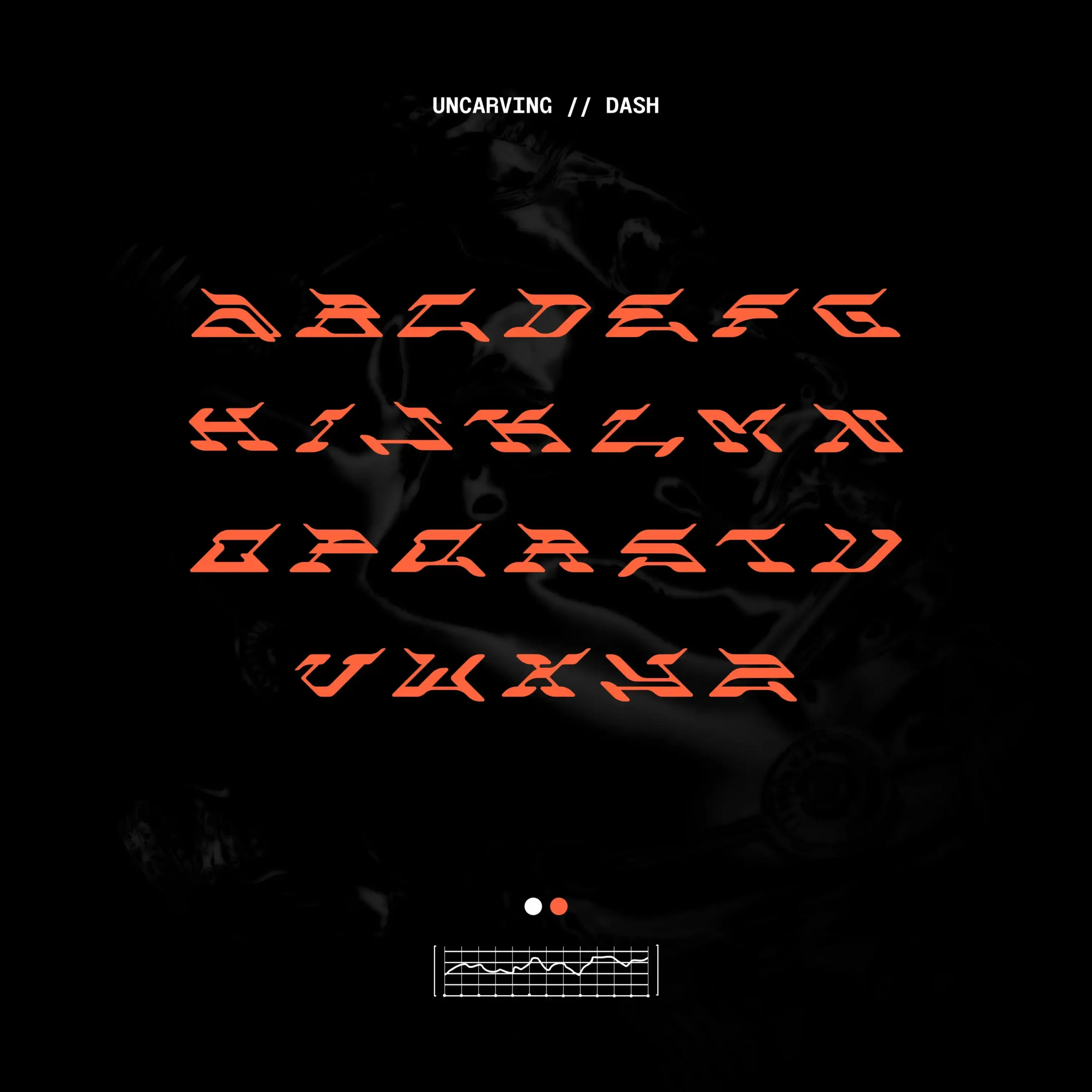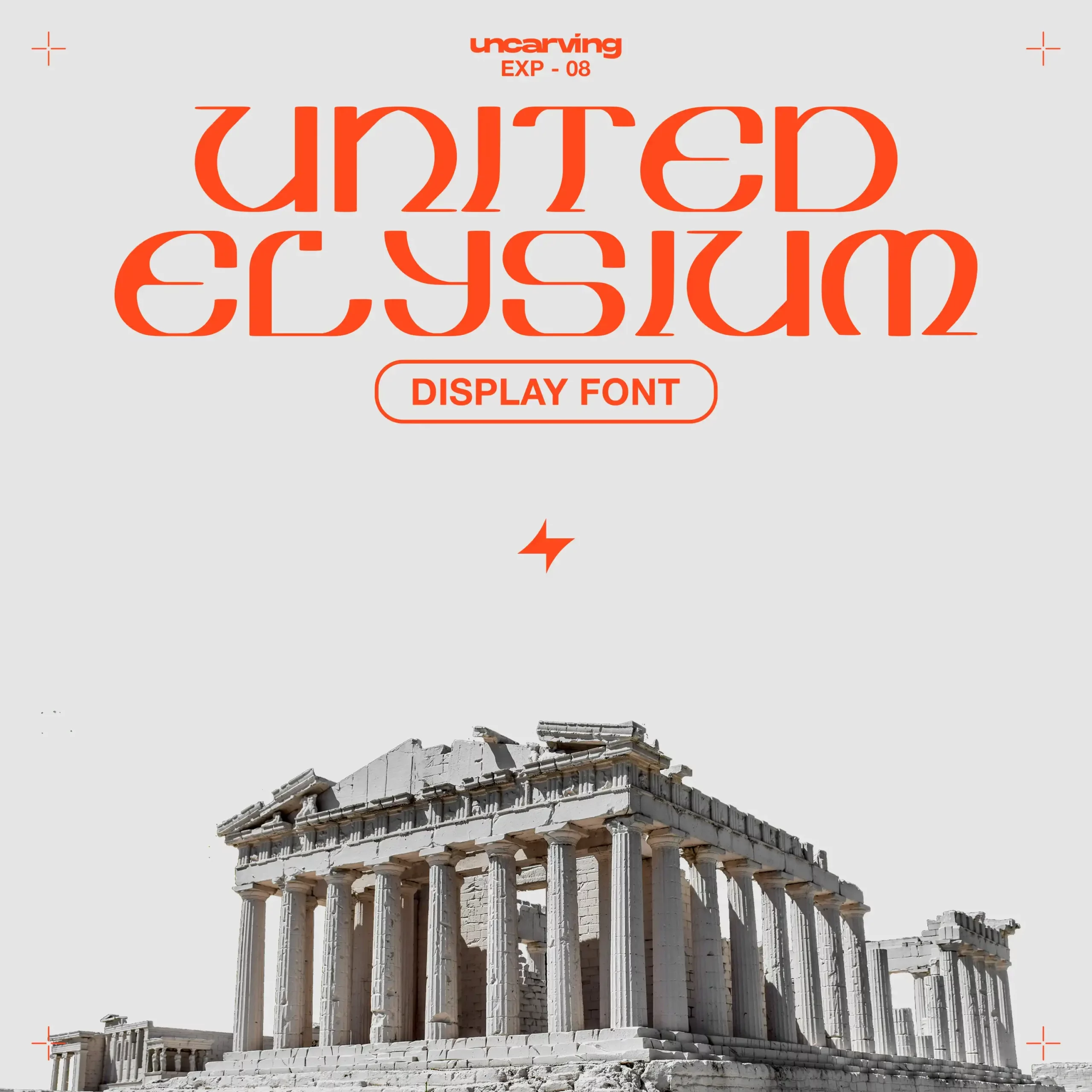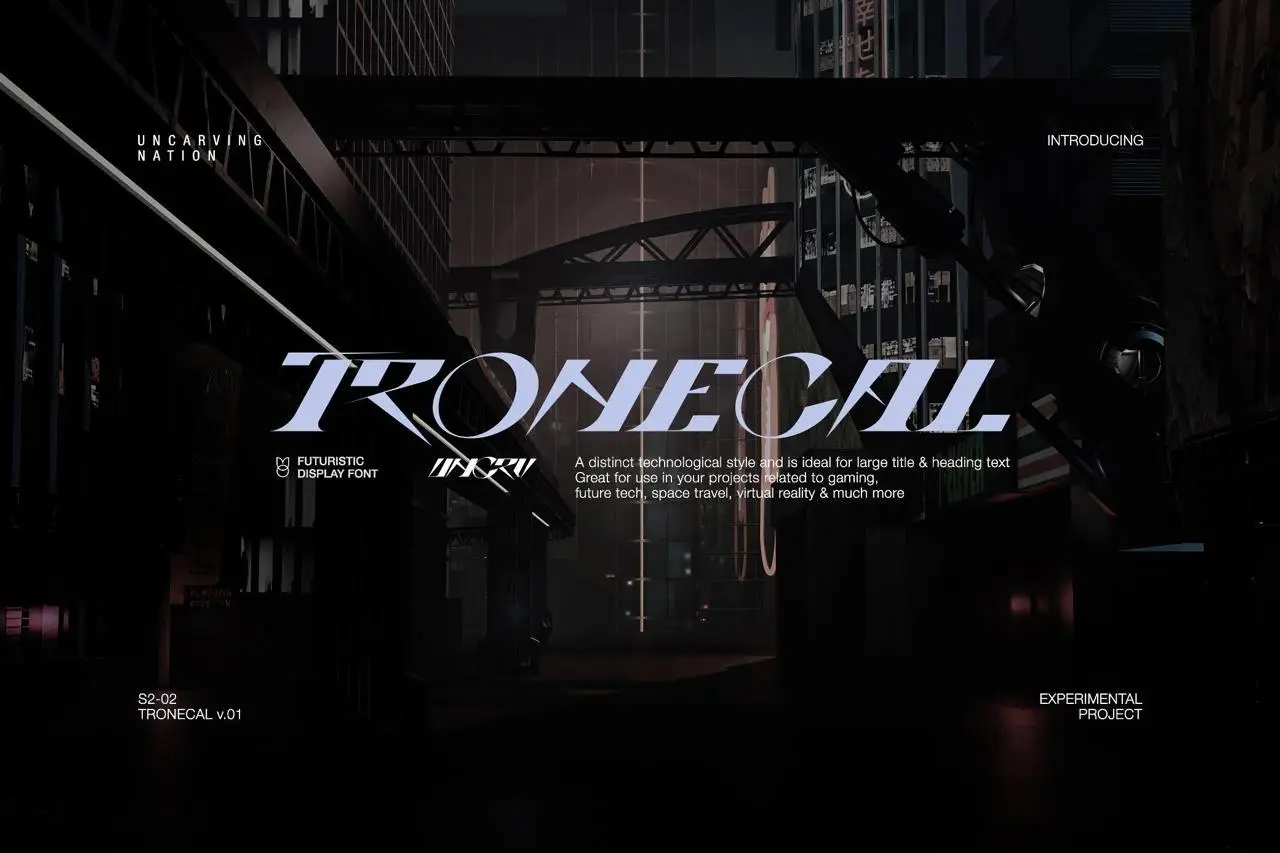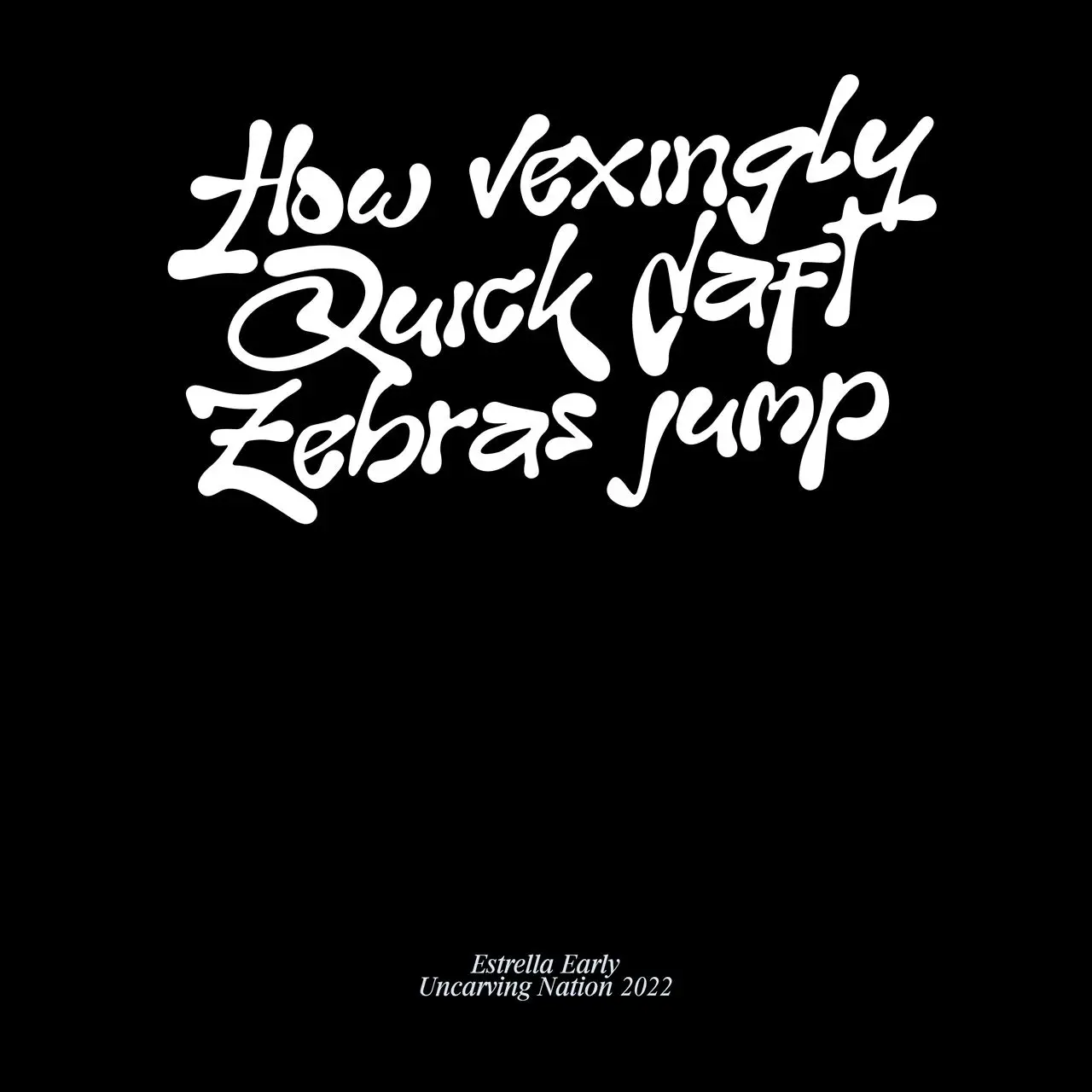
Hey there, fellow typeface lover! 🎨✨ Are you ready to take your designs to a whole new dimension? The uncarving collection is an absolute goldmine of futuristic display fonts that scream creativity, boldness, and next-level style. Whether you’re building a cyberpunk game UI, a sleek branding identity, or a mind-bending poster for a sci-fi event, these typefaces are about to become your new secret weapons. 🚀 Let’s dive into nine handpicked gems from the brilliant mind at uncarving—each one a ticket to typography heaven!
Why Use These Futuristic Display Fonts?
These aren’t just letters—they’re visual statements. The uncarving collection is designed to help your work stand out in a world flooded with generic typography. From gaming and VR to high-fashion branding, these fonts bring a modern, edgy vibe that instantly grabs attention and communicates innovation. 💥 Plus, they’re all instant digital downloads, so you can start creating magic the moment inspiration strikes!
Top 9 Uncarving Display Font Picks
Anvha – Display Font
Say hello to Anvha—a modern display font that blends boldness with a beautiful italic swing! 🚀 If you’re working on gaming posters, space-themed logos, or futuristic tech branding, this one’s your new best friend. It’s simple yet totally unique, and it’ll give your projects that “wow” factor instantly. ✨
Tronecal – Display Font (Version 1)
Get ready for a futuristic feast for the eyes! 🛸 Tronecal (version one) is all about those sharp, striking shapes that scream “tomorrow.” Perfect for space exploration graphics, VR interfaces, and game assets, this font keeps things simple while looking incredibly advanced. You’ll love how it elevates any design with its unique aesthetic! 🌌
Estrella – Display Font (Version 1)
Oh, Estrella—you absolute star! ⭐ This beautifully crafted display font adds a touch of elegance to any project, from luxury branding to eye-catching advertising. It’s sophisticated without being stuffy, with letterforms that truly shine. Whether personal or commercial use, Estrella will make your work look polished and premium. 🌟
Tronecal – Display Font (Original)
The original Tronecal is back and just as stunning as ever! 🎉 This futuristic font is perfect for adding a modern flair to your designs—whether you’re creating a tech startup logo or a sci-fi movie poster. Download it instantly and let your creativity run wild. It’s bold, clean, and absolutely iconic. 🚀
DASH Early Font
Hey creative soul, meet DASH Early—a font that’s equal parts stylish and modern! ⚡️ It combines contemporary aesthetics with a playful edge, making it ideal for branding, social media graphics, and eye-catching headlines. Instant download means you can start using it in minutes. Trust me, your design toolkit needs this one! 💥
Estrella – Display Font (Version 2)
Another breathtaking version of Estrella has landed! 🌸 This charming display font brings elegance and creativity to any project, from wedding invitations to chic brand identities. Its delicate letterforms make every word look like art. Grab this digital download and add a touch of grace to your next design. You’ll fall in love instantly! 💖
United Elysium Display Font
Welcome to paradise typography! 🏝️ United Elysium is the perfect blend of creativity and elegance, ideal for graphic designers who want their work to feel both dreamy and professional. Whether for branding, posters, or editorial layouts, this font brings a unique charm that’s hard to resist. Download it now and elevate your design game! ✨
Vertigo – Display Font
Get ready to spin into creativity with Vertigo! 🌀 This bold, modern typeface is absolutely electrifying for posters, branding, and any project that demands attention. It’s edgy, it’s dynamic, and it’s ready to make your designs pop. Plus, instant download means the fun starts now. Don’t sleep on this one! 🚀
Arvaq – Display Font
Last but not least, say hello to Arvaq—a fabulous, bold display font that demands to be noticed! 🎉 Perfect for headlines, logos, and creative typography, Arvaq adds a modern, fearless flair to everything it touches. Instant access means you can start crafting jaw-dropping designs in no time. Go ahead, give your projects the Arvaq edge! 💪✨
The uncarving collection is a true treasure chest for anyone who loves bold, futuristic typography. Each font in this lineup brings something unique to the table—from elegant curves to sharp, tech-inspired edges. Whether you’re a professional designer or a passionate hobbyist, these display fonts will supercharge your creativity and make your projects shine. 🚀🎨
What makes the uncarving font collection unique?
Uncarving fonts are known for their futuristic, modern aesthetics that blend simplicity with striking shapes. They’re specially crafted for gaming, tech, VR, space-themed projects, and cutting-edge branding. Each typeface offers a distinctive personality that helps your designs stand out immediately. 🌟